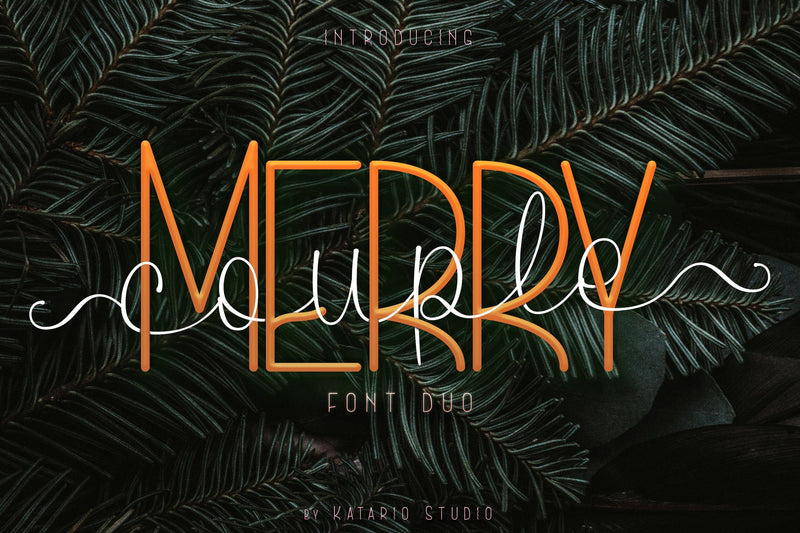
MerryCouple | Lovely Font Duo San Serif Script
MerryCouple is a sweet and delicate duo font (handwritten and sans serif). Dainty and joyful, this font will be ideal for writing wedding invitations, cards or any other design that may need a romantic, personalized touch!